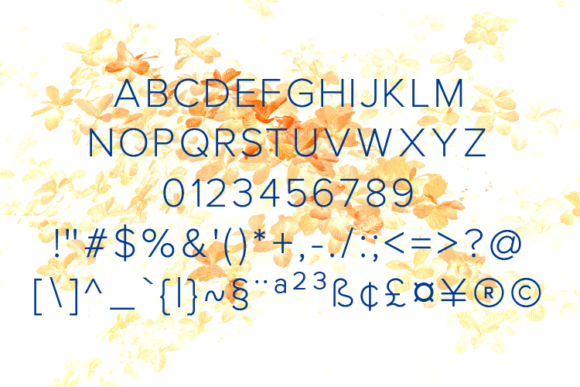
Gerkco Light Font: Elevate Your Designs with a Touch of Modern Elegance
In the world of typography, a font can make all the difference in the success of a design project. Whether you’re a seasoned designer or a crafty DIY enthusiast, finding the right font can be a daunting task. However, if you’re looking for a clean, elegant, and modern sans serif font, look no further than Gerkco Light. In this article, we’ll dive into the features and benefits of Gerkco Light, and explore how you can use it to take your designs to the next level.
What is Gerkco Light Font?
Gerkco Light is a stunning sans serif font that exudes a sense of modernity and sophistication. Its clean lines, elegant curves, and balanced proportions make it an ideal choice for a wide range of design projects. Whether you’re creating a logo, social media post, book cover, or any other visual material, Gerkco Light is sure to impress.
Key Features of Gerkco Light Font
- Clean and Elegant Design: Gerkco Light boasts a sleek and refined design that will add a touch of sophistication to any project.
- Modern Feel: Its modern sans serif design ensures that your project looks fresh and up-to-date.
- Versatile: Gerkco Light is suitable for a wide range of design projects, from logos and social media posts to book covers and more.
- Easy to Read: The font’s clear and legible design makes it perfect for body text, headings, and titles.
Benefits of Using Gerkco Light Font
- Enhance Your Brand’s Visual Identity: Gerkco Light can help you create a consistent and professional visual identity for your brand.
- Stand Out from the Crowd: Its unique and modern design ensures that your project will stand out from the competition.
- Save Time: With Gerkco Light, you can create stunning designs in no time, thanks to its ease of use and versatility.
- Perfect for Digital and Print: Whether you’re designing for digital or print, Gerkco Light performs beautifully in both mediums.
How to Use Gerkco Light Font in Your Designs
- Logos: Create a stunning logo for your brand with Gerkco Light. Its modern design ensures that your logo will look sleek and professional.
- Social Media Posts: Use Gerkco Light to create eye-catching social media posts that will grab the attention of your audience.
- Book Covers: Design a unique and captivating book cover with Gerkco Light. Its elegant design is sure to appeal to readers.
- Business Cards: Add a touch of sophistication to your business cards with Gerkco Light.
Tips for Getting the Most Out of Gerkco Light Font
- Experiment with Different Sizes: Gerkco Light looks great in a variety of sizes, so don’t be afraid to experiment.
- Pair it with Other Fonts: Try pairing Gerkco Light with other fonts to create a unique and visually appealing design.
- Use it Consistently: Use Gerkco Light consistently across all your design projects to create a cohesive visual identity.
In conclusion, Gerkco Light is a versatile and modern sans serif font that is perfect for designers and crafters looking to elevate their designs. Its clean and elegant design, modern feel, and ease of use make it an ideal choice for a wide range of design projects. Whether you’re creating logos, social media posts, book covers, or any other visual material, Gerkco Light is sure to impress. So why wait? Download Gerkco Light today and take your designs to the next level!